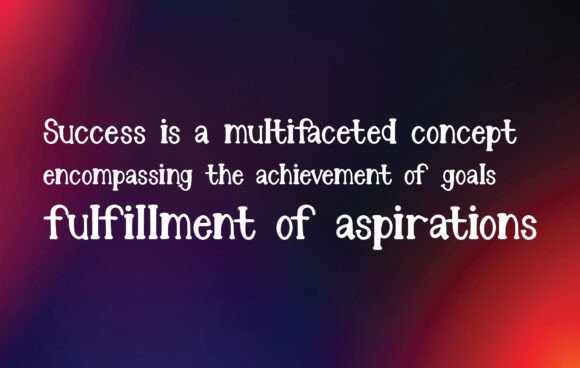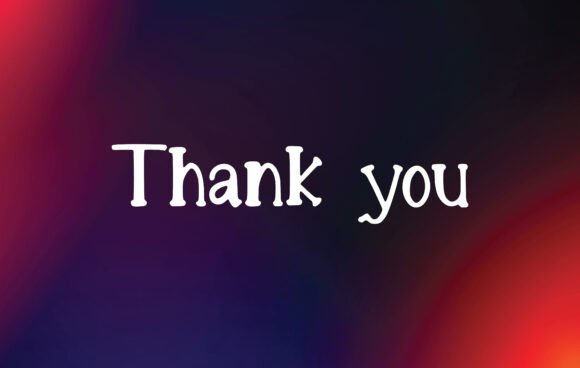
Introducing Allure Font: Elevate Your Designs with Elegance and Sophistication
In the world of typography, a font can make or break a design. It’s the perfect blend of style, elegance, and personality that can elevate your creative ideas to new heights. If you’re a designer, crafters, or simply someone who appreciates beautiful typography, you’re in for a treat. Say hello to Allure Font, a lovely and beautiful handwritten font that’s about to become your new favorite.
The Allure of Handwritten Fonts
Handwritten fonts have a unique charm that can add a personal touch to any design. They evoke emotions, convey personality, and create a sense of connection with the reader. Allure Font is no exception. With its delicate strokes, flowing curves, and whimsical flair, this font is perfect for creating eye-catching logos, branding, and quotes that leave a lasting impression.
What Makes Allure Font Special?
So, what sets Allure Font apart from other fonts in its class? Here are just a few reasons why this font is a cut above the rest:
- Unique Character Set: Allure Font features a comprehensive character set that includes uppercase and lowercase letters, numbers, punctuation marks, and special characters. This ensures that you have everything you need to create stunning designs.
- Elegant and Sophisticated: The font’s elegant and sophisticated style makes it perfect for high-end branding, luxury packaging, and refined designs.
- Versatile: Allure Font is incredibly versatile and can be used for a wide range of design projects, from logos and branding to quotes, posters, and more.
- Easy to Read: Despite its elegant style, Allure Font is surprisingly easy to read, making it perfect for body text and longer design projects.
Use Cases for Allure Font
So, what can you create with Allure Font? The possibilities are endless! Here are a few ideas to get you started:
- Logos and Branding: Create stunning logos, business cards, and branding materials that exude elegance and sophistication.
- Quotes and Posters: Design eye-catching quotes, posters, and social media graphics that inspire and motivate.
- Packaging and Labels: Add a touch of luxury to your packaging and labels with Allure Font’s elegant style.
- Wedding and Event Design: Create beautiful wedding invitations, programs, and event materials that showcase your personal style.
Tips for Using Allure Font
To get the most out of Allure Font, here are a few tips to keep in mind:
- Pair with Other Fonts: Experiment with pairing Allure Font with other fonts to create a unique and visually appealing design.
- Play with Colors: Don’t be afraid to experiment with different colors and textures to add depth and interest to your design.
- Use it Sparingly: While Allure Font is beautiful, it can be overwhelming if overused. Use it sparingly to create a sense of balance and harmony in your design.